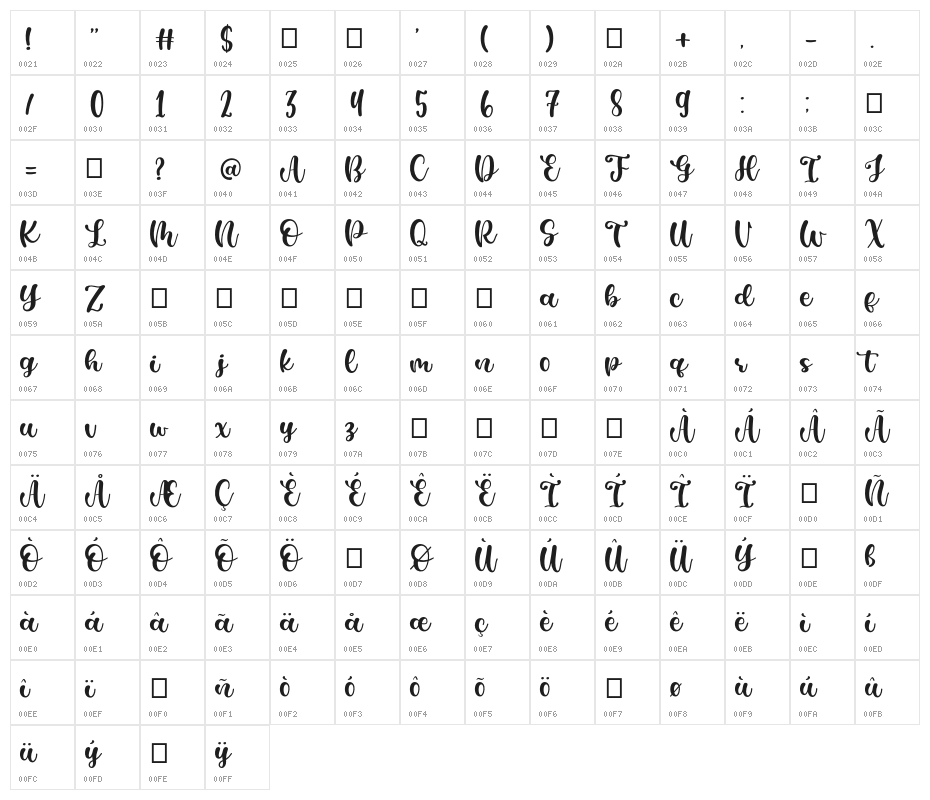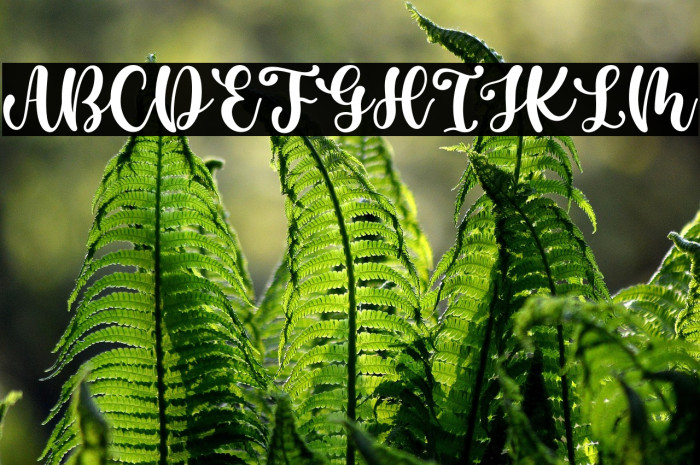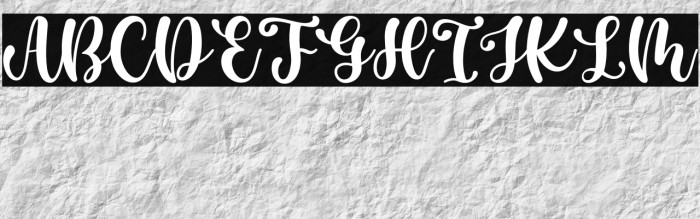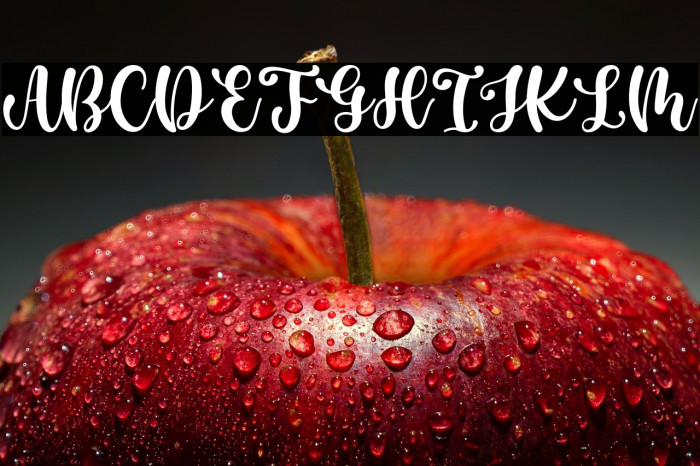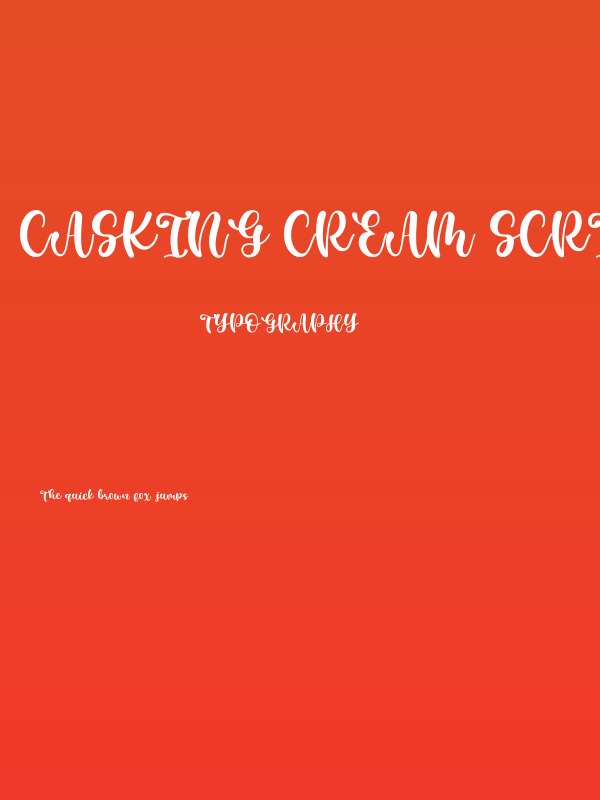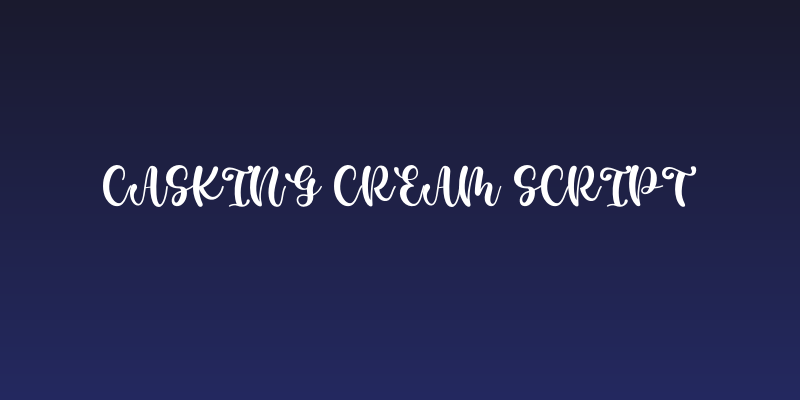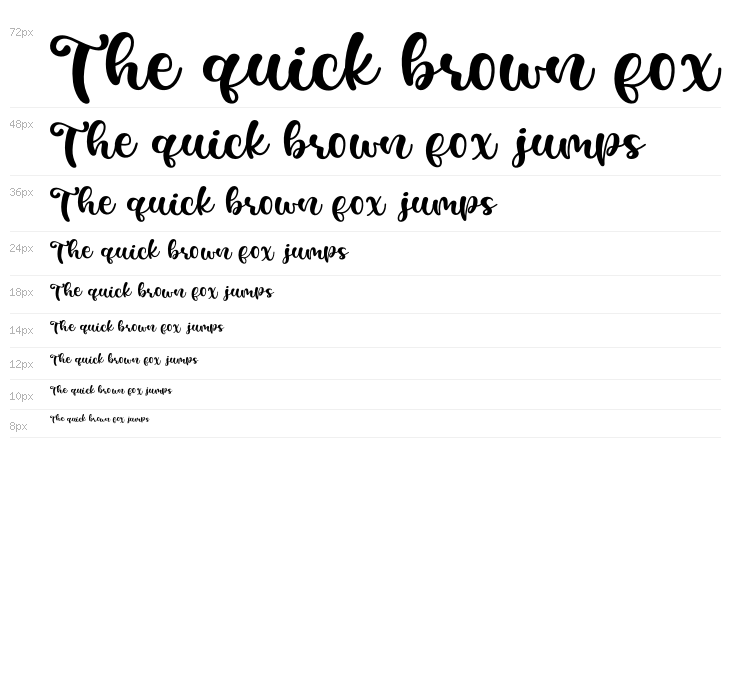
Casking Cream Script Font
Casking Cream Script Description
This font features a flowing, cursive style with a playful and elegant appearance. The uppercase letters are bold and have a distinct loop and swirl at the end of each stroke, giving them a whimsical touch. The lowercase letters maintain a consistent flow, with rounded edges and smooth connections between characters. The numbers are similarly styled, with a slight slant and decorative loops that match the overall script theme. Special characters are integrated seamlessly, maintaining the same playful and elegant style. This font is perfect for adding a personal and artistic touch to any design.
| Use Case | Logos, Headlines, Invitations |
| Proposed Projects | Ideal for wedding invitations, greeting cards, branding projects, and decorative signage. |